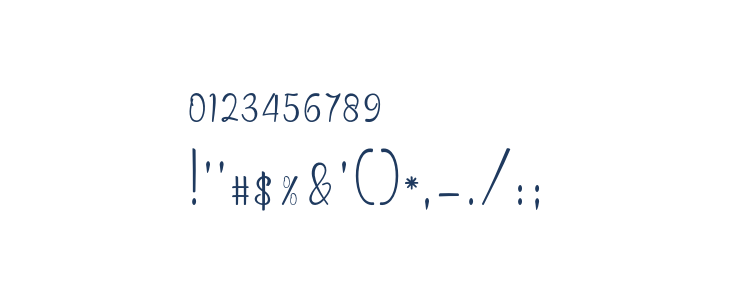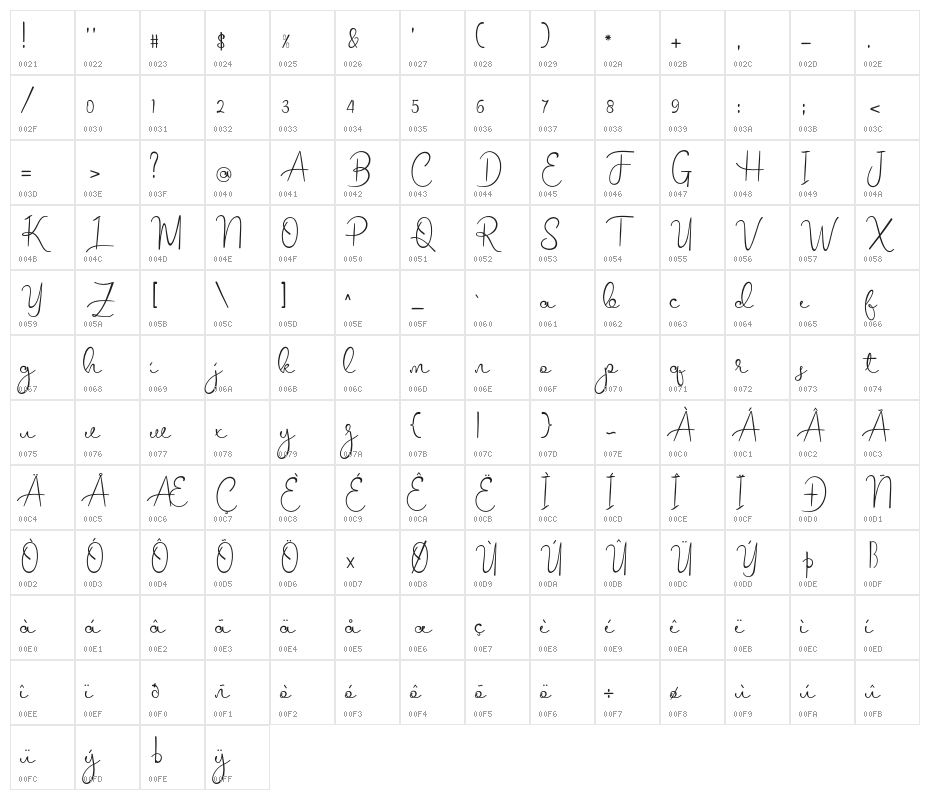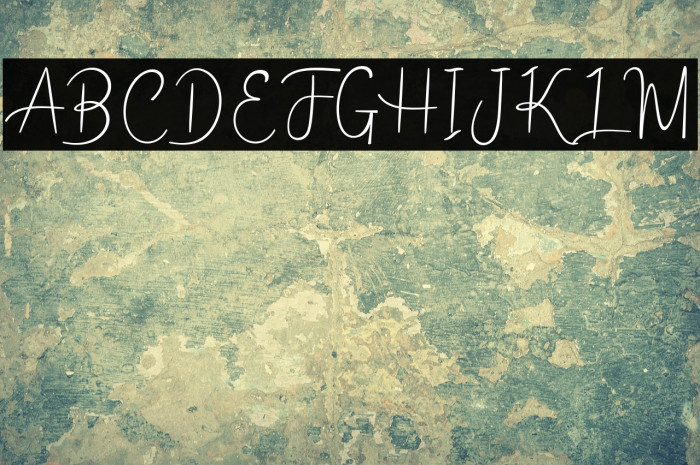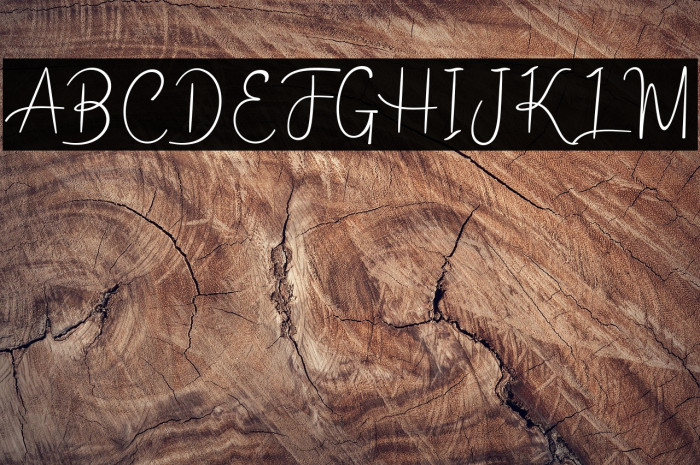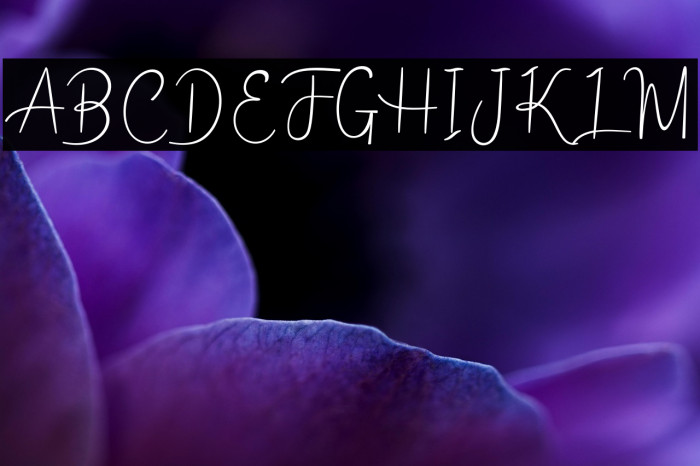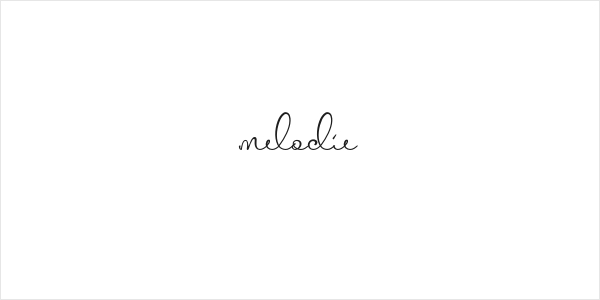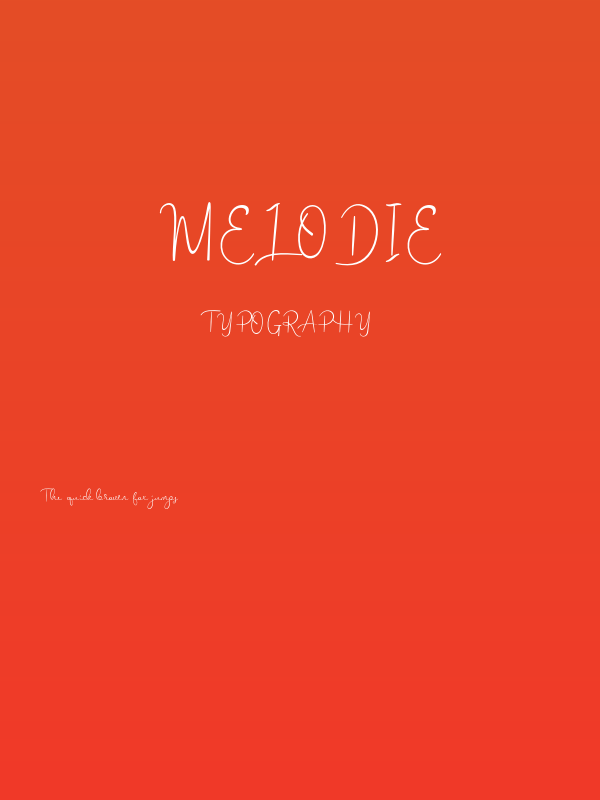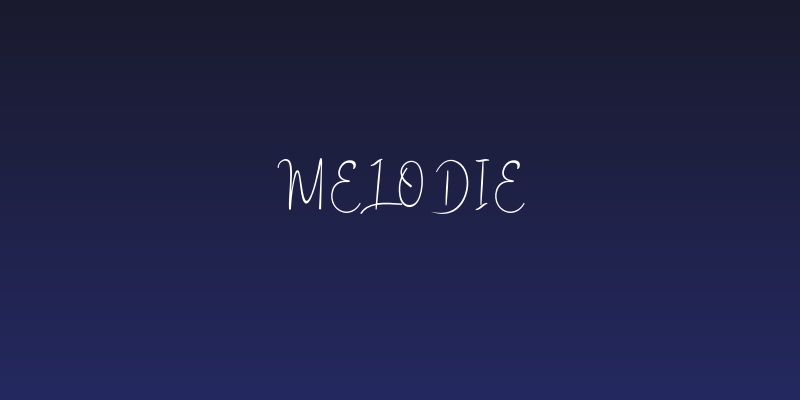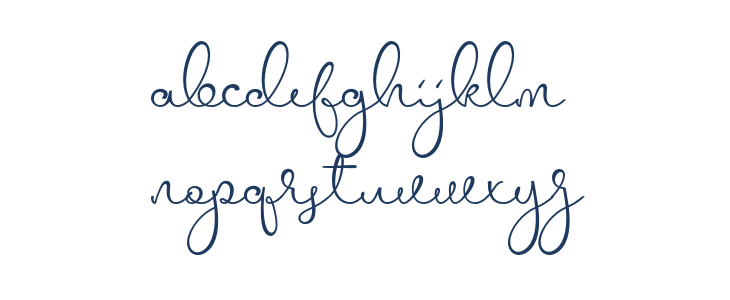
melodie Font
melodie Description
This font features a playful and elegant script style with a handwritten appearance. The uppercase letters are tall and slender, with a slight slant that adds a dynamic flow. The lowercase letters are more fluid and connected, creating a sense of continuity and grace. The numerals are clear and consistent with the overall style, maintaining the same playful yet sophisticated feel. The special characters complement the alphabet with similar curves and loops, ensuring a cohesive look across all text. This font is perfect for projects that require a personal touch, such as invitations, greeting cards, or branding materials.
| Overall Style | Elegant, Playful |